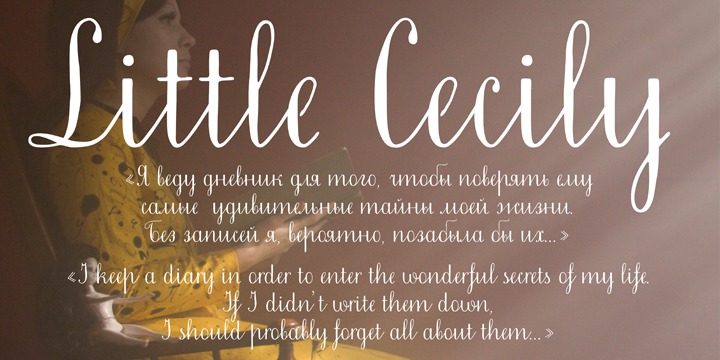
Typeface Little Cecily was designed on the base of Russian calligraphy sample book for primary schools “Propisi pryamogo pis’ma” (Moscow, 1914). Such kind of scripts was implemented in school programs at the end of 19th — beginning of 20th century. There was an opinion that the straight writing is easier for learning and better for children from a medical point of view. More…
The letterforms of the typeface are characterized by simplified constructions and upright design which distinguishes it from the list of typical school scripts and convey to it a naive charm and originality. The character set covers standard Western and Cyrillic code pages and contains some additional letters from the old Russian orthography. Besides it includes alternative letters that were presented in original book and contextual forms for connected writing.
The font was designed by Olga Umpeleva.
Released by ParaType in 2011.